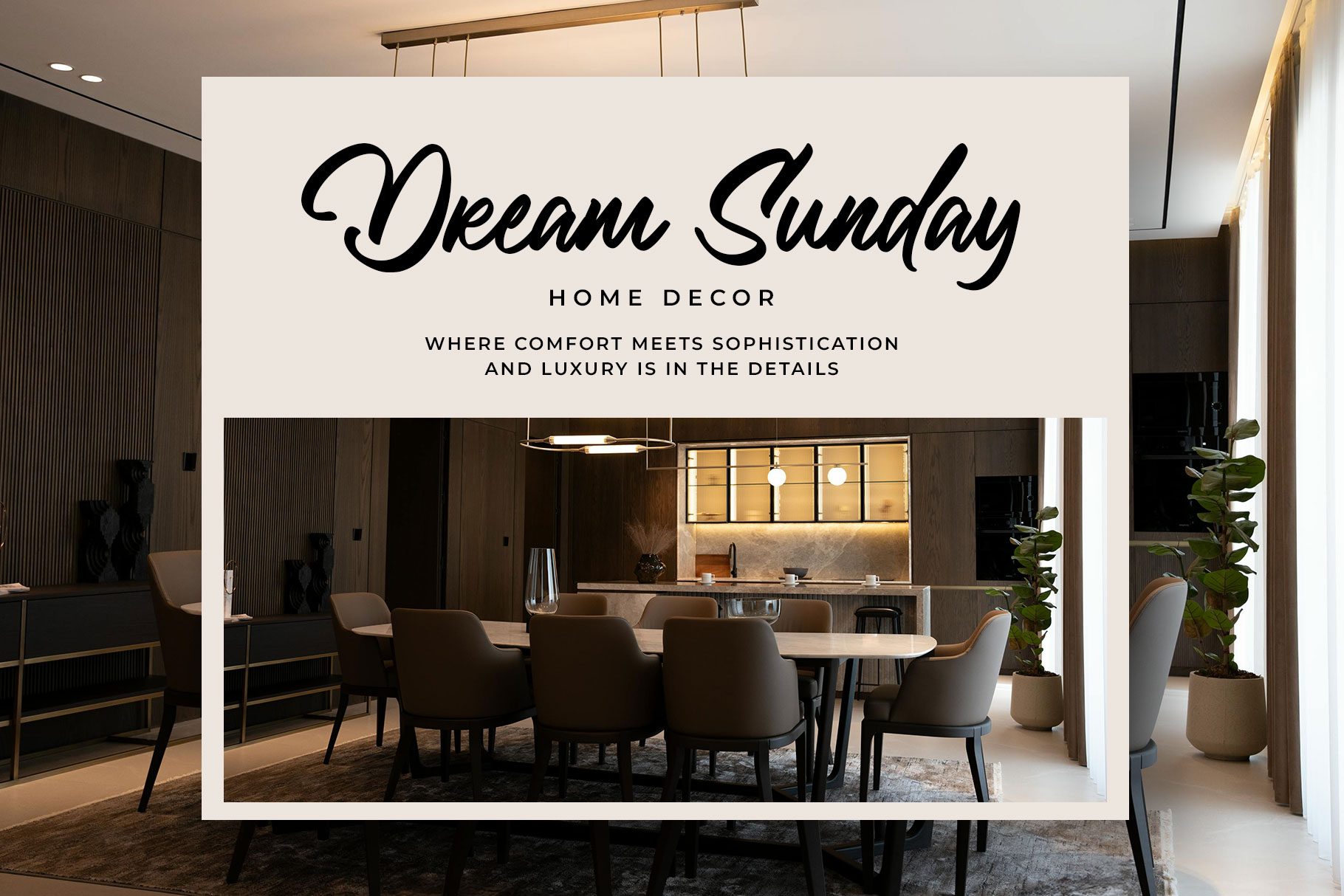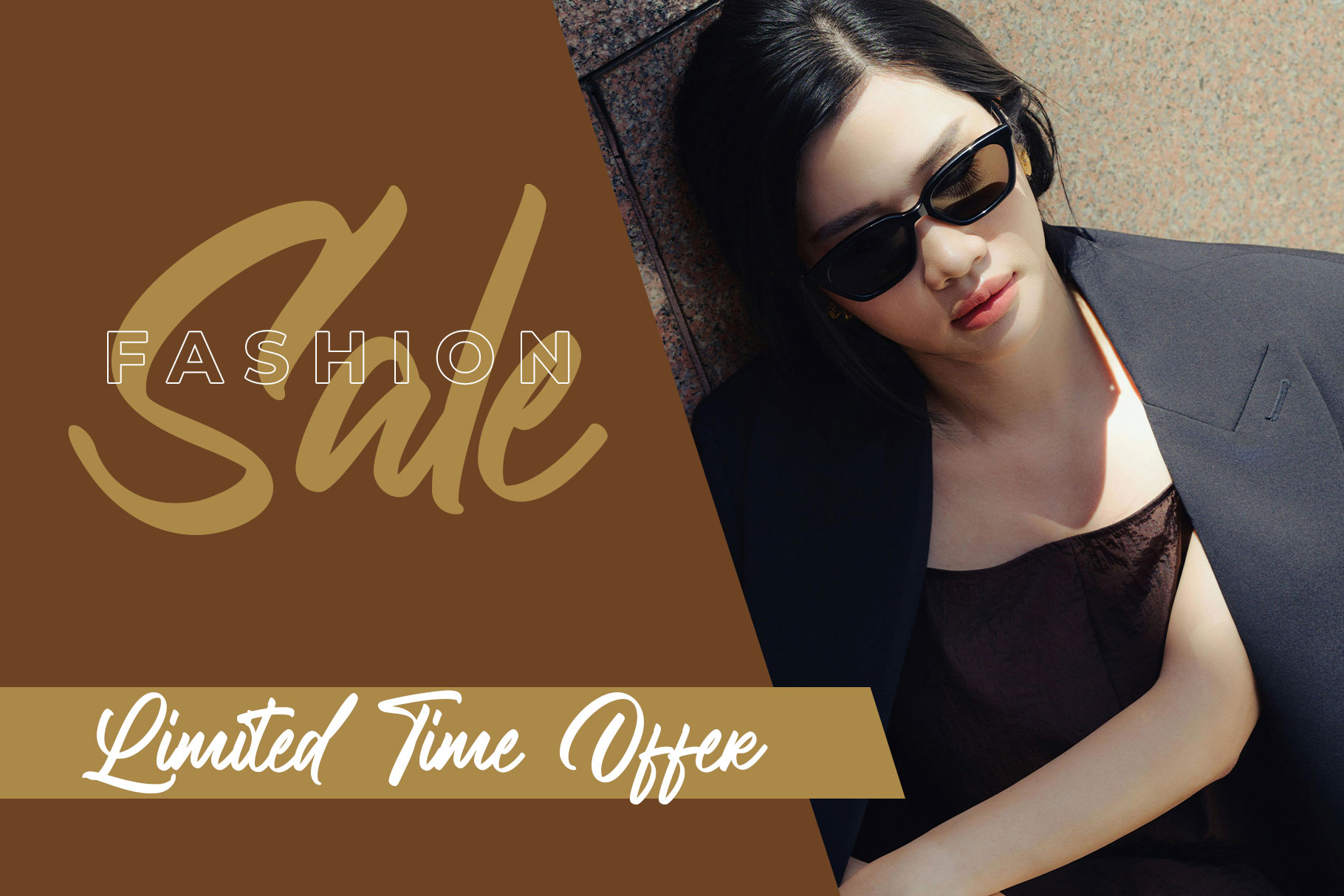
Febianty Modern Script Font
Febianty modern script font with casual look. Febianty come with both stylish and easygoing, perfect for balancing sophistication with friendliness. Febianty is a perfectly choice for any creative endeavor, creating, modern, lifestyle design such as logotype, title, cover, branding, invitations, wedding designs, display and magazine, social media posts, advertisements, printed quotes, product packaging, corporate brand, product designs, labels, photography, watermarks, special events and any other project with modern touch.